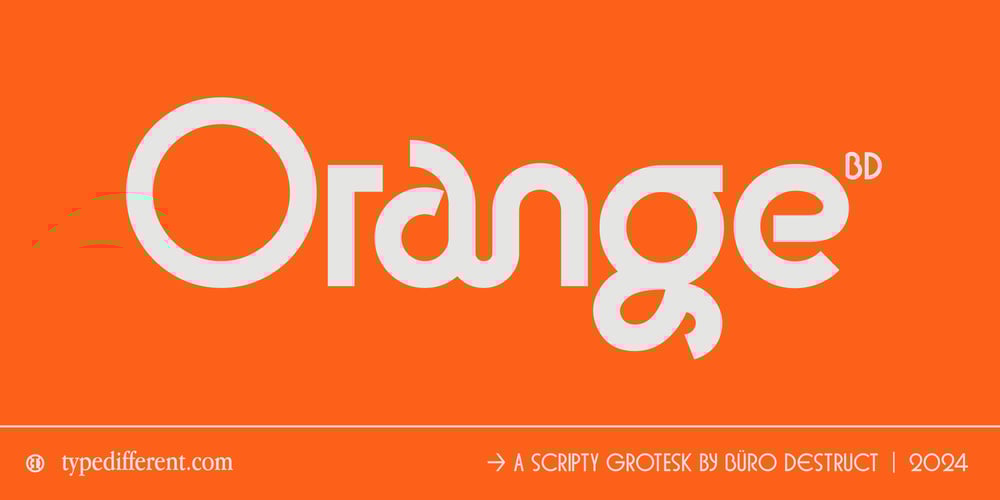
BD Orange Font Family was designed by Lorenz (Lopetz) Gianfreda and published by Typedifferent. BD Orange contains 6 styles and family package options. «BD Orange» is a picturesque scripty grotesk typeface with a large amount of alternatives, discretionary ligatures, five weights family from delicate thin to loud black or variable. With a total of 1025 glyphs «BD Orange» is a language talent and speaks so many languages including uppercase Cyrillic, Greek and even Japanese Katakana. With its versatility and its balance of classic meets avant-garde this font will serve you as a reliable titling, logotype and body text typesetter.